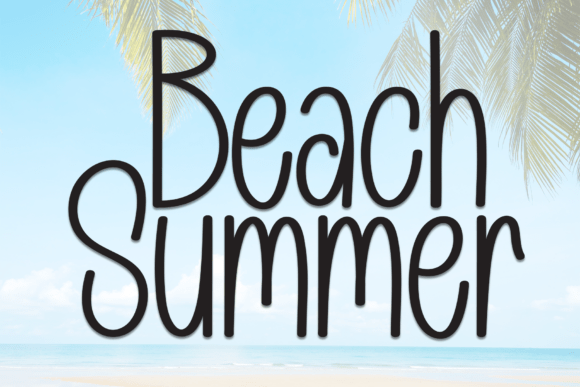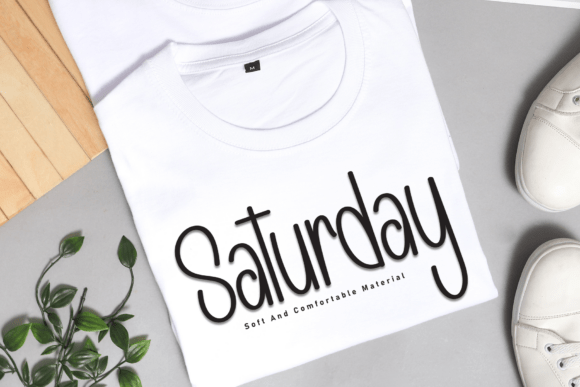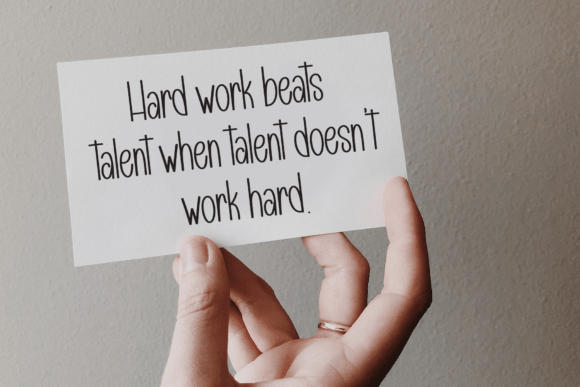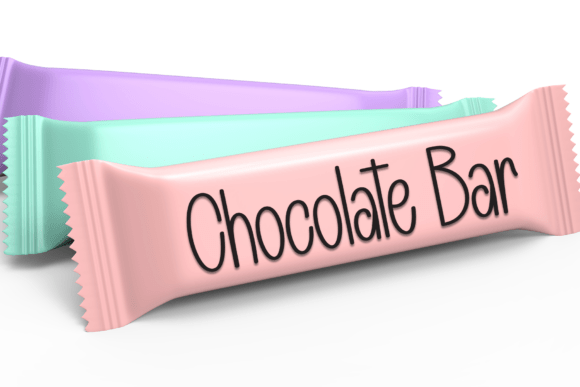
Beach Summer Font
Presenting a charmingly friendly handwritten display font – artful in its simplicity yet brimming with personality. Adorned with a distinctive sweet allure, it renders an element of fun and whimsy to your designs. This delightful typeface is most fitting for social stationery including wedding invitations and greetings cards, infusing a playful spirit into any design project that calls for a dash of fun. The charm of this font lies in its ability to convert commonplace text into extraordinary compositions. An embodiment of nostalgia, it captures the perfect blend of the classic and the modern. Elevate your design aesthetics with this impeccably crafted delight!